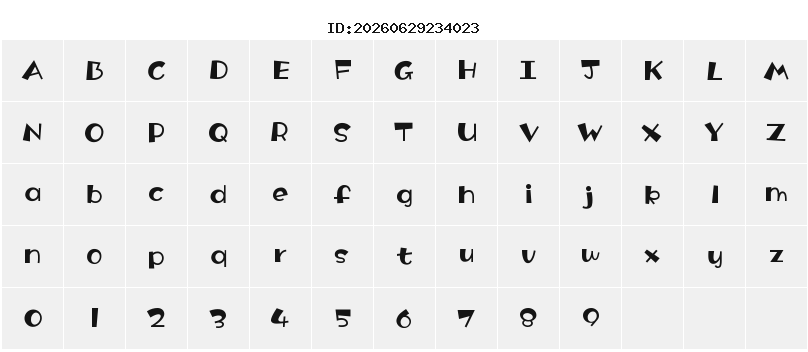
Aa奇幻马戏团 Preview
• Font Name: Aa奇幻马戏团
• Font Style: 常规
• Font ID: 1.000;Aa;AaQHMXT;2020
• Full Font Name: Aa奇幻马戏团
• PostScript Name: AaQHMXT
• Character Count: 8010
• Designer: Aa
• Manufacturer: 翰美互通(厦门)科技有限公司
• Description: AaQHMXT is a fantastic font with excellent features designed for user interfaces and electronic communications.
About Aa奇幻马戏团.ttf
Aa奇幻马戏团.ttf is a modern, elegant sans-serif font designed for ultimate readability and visual harmony. Perfect for branding, headlines, web design, and print materials.